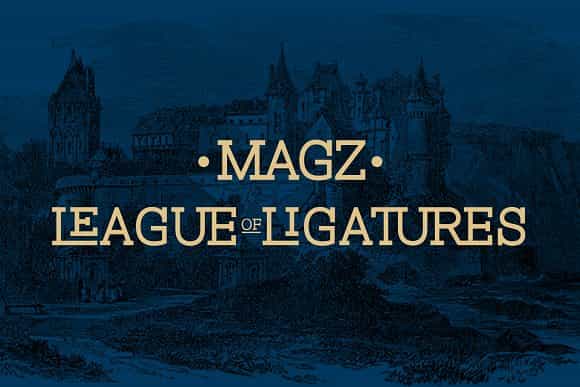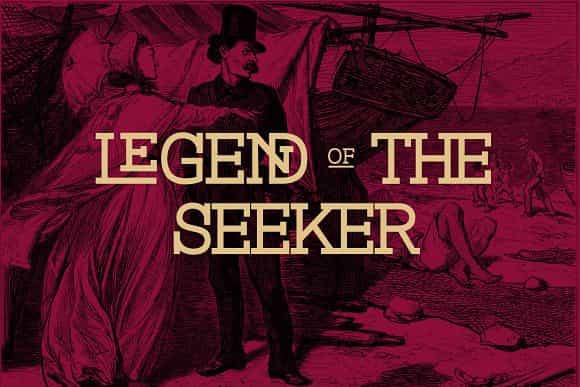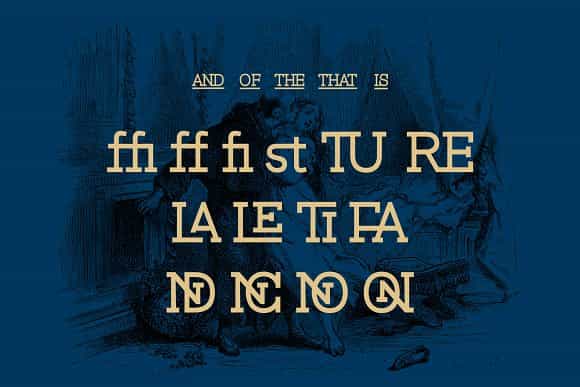
Discover Magz Slab Font, part of the Slab Serif collection—a versatile and unique font perfect for adding a personal touch to your projects. Download it for free and enjoy crafting designs with style, from invitations to social media posts. This font is available exclusively for personal use, giving you the freedom to create without limits. Unlock your creativity with Magz Slab Font today!
Introducing Magz Typeface. It is created by Tapiwanashe Garikayi, this is a premium font which is sold on creativemarket but it was great that it can be downloaded for free today. Magz Slab is a contemporary geometrically designed slab serif font with the slight contrast between the horizontal and vertical weights. It is perfect for presentation having a lot of Ligatures, which will make your designs look unique.